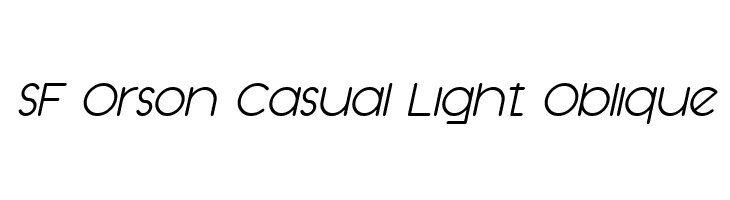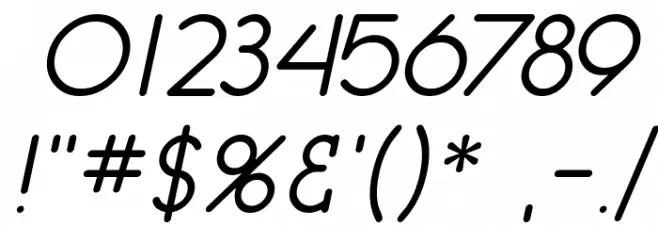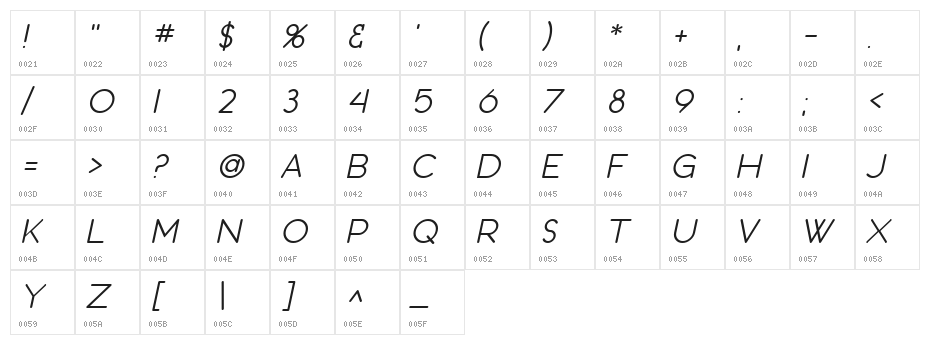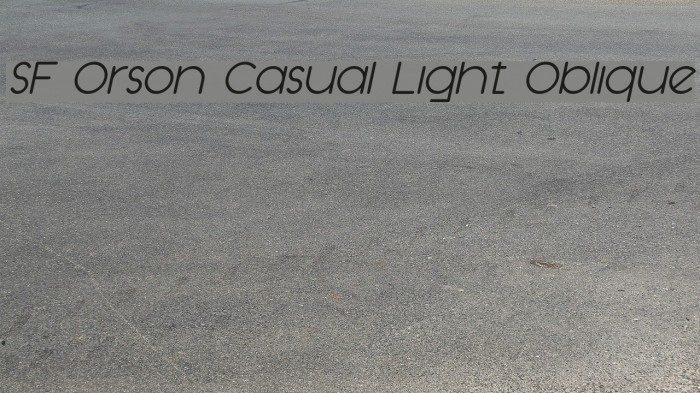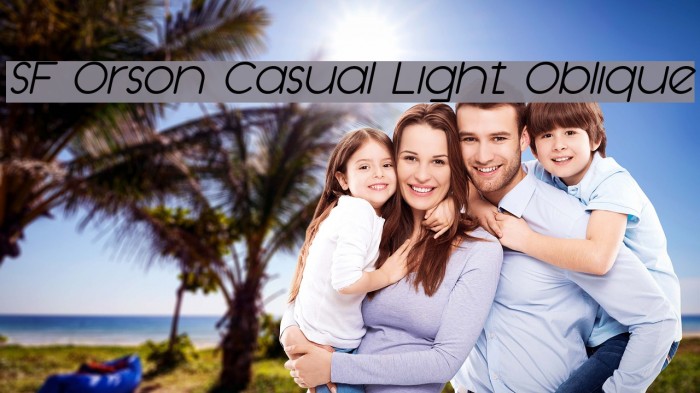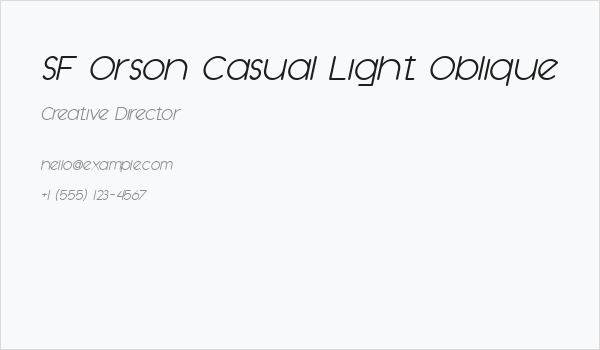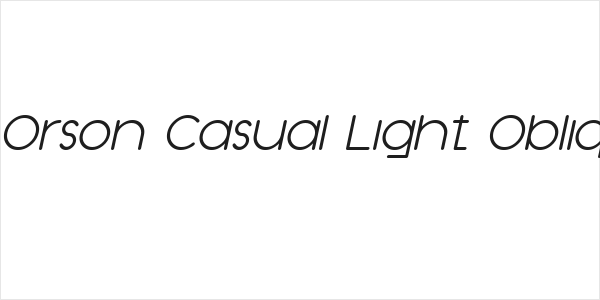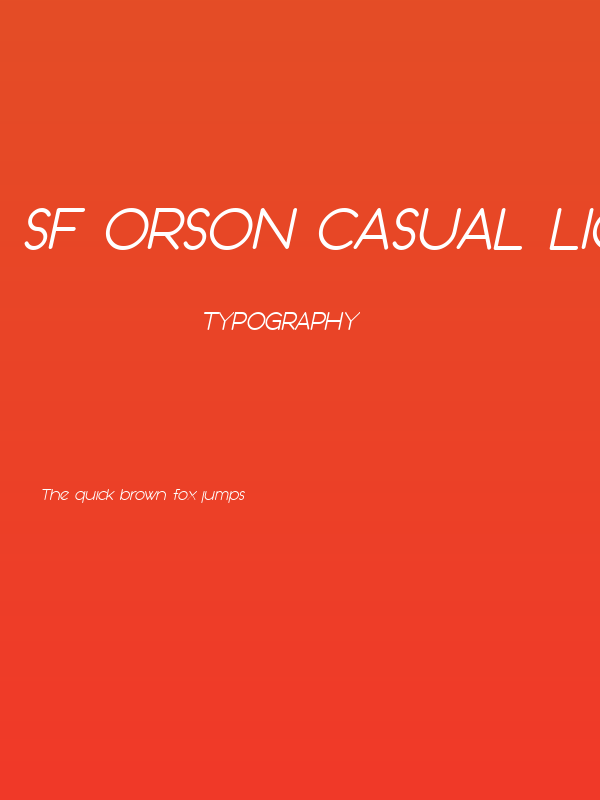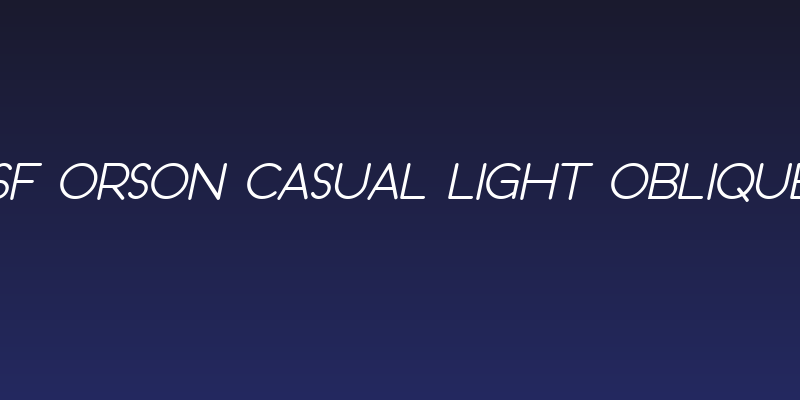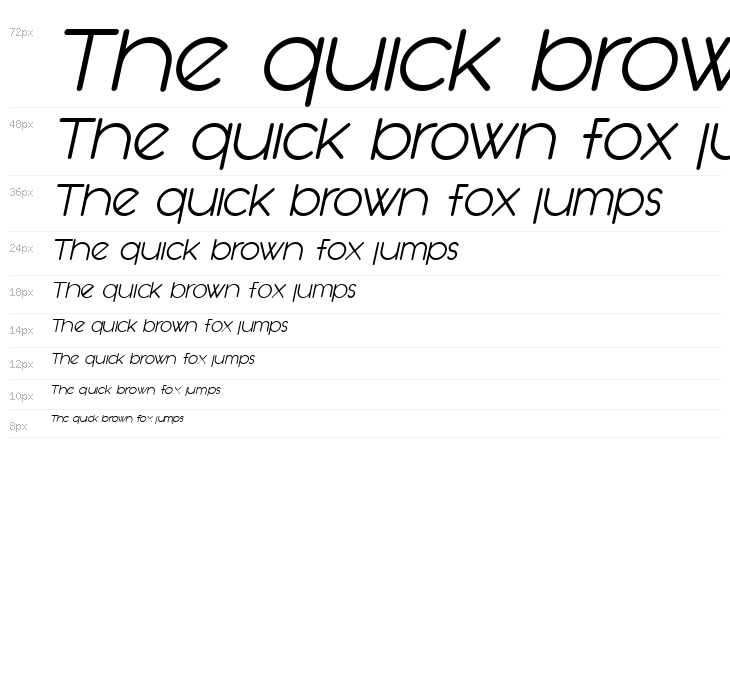
SF Orson Casual Light Oblique Font
SF Orson Casual Light Oblique Description
This font features a sleek, modern design with a casual flair. Its oblique style adds a sense of motion and dynamism, making it ideal for projects that require a contemporary and informal touch. The characters are well-spaced, ensuring readability while maintaining a stylish appearance. The light weight of the strokes provides an airy feel, perfect for designs that aim to convey elegance and simplicity. The font includes a full set of uppercase and lowercase letters, numbers, and a variety of special characters, making it versatile for various design needs.
| Proposed Projects | Ideal for branding, advertising, social media graphics, and modern web design. |